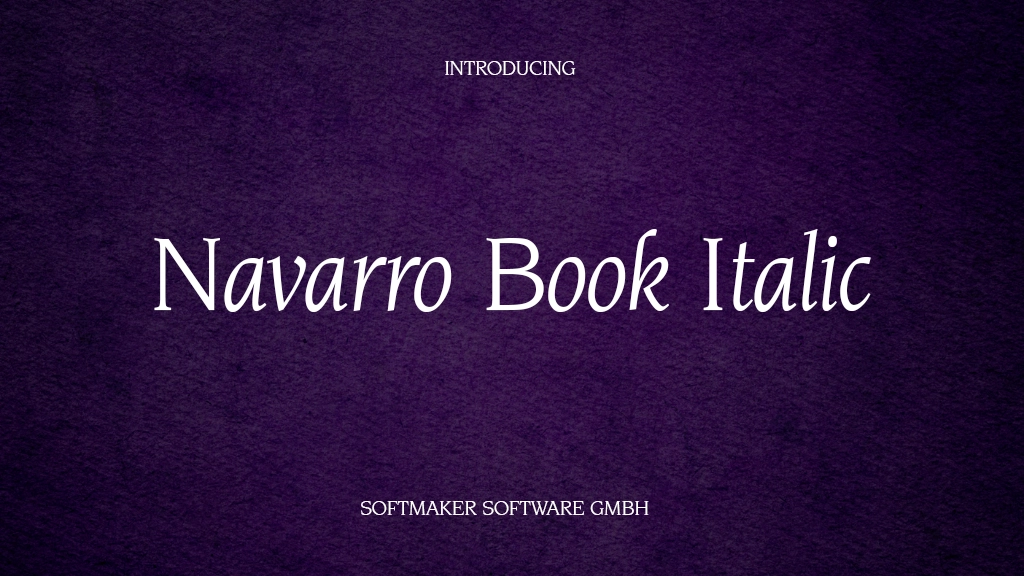
Navarro Book Italic is a font that is suitable for fun designs.It is a BookItalic font, which means that it is a serif font with a moderate amount of contrast between thick and thin strokes.It was designed by SoftMaker Software GmbH and is free for personal use.